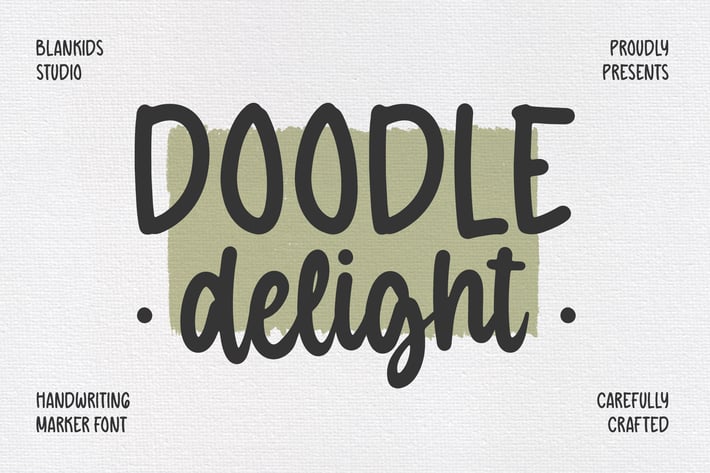
Introducing "Doodle Delight" a Rounded Marker Script Font!
Unleash your artistic flair with our whimsical font crafted for the artisanal spirit in you. Designed for the crafting connoisseur, the handwriting aficionado, and the marker maven, "Doodle Delight" encapsulates the essence of playful strokes and handcrafted charm.
Perfectly tailored for a myriad of graphic design projects, from captivating logos to enchanting wedding cards, from eye-catching posters to delightful packaging, "Doodle Delight" adds a touch of elegance and cheer to every creation.
Embrace the delightful nuances of this font – its joviality, its femininity, its sheer beauty. With each stroke, it radiates joy and invites creativity, making every project a masterpiece in its own right.
Join the league of artisans and designers who seek to infuse their work with personality and charm. Elevate your designs with "Doodle Delight" and let your imagination run wild!
Unleash your artistic flair with our whimsical font crafted for the artisanal spirit in you. Designed for the crafting connoisseur, the handwriting aficionado, and the marker maven, "Doodle Delight" encapsulates the essence of playful strokes and handcrafted charm.
Perfectly tailored for a myriad of graphic design projects, from captivating logos to enchanting wedding cards, from eye-catching posters to delightful packaging, "Doodle Delight" adds a touch of elegance and cheer to every creation.
Embrace the delightful nuances of this font – its joviality, its femininity, its sheer beauty. With each stroke, it radiates joy and invites creativity, making every project a masterpiece in its own right.
Join the league of artisans and designers who seek to infuse their work with personality and charm. Elevate your designs with "Doodle Delight" and let your imagination run wild!